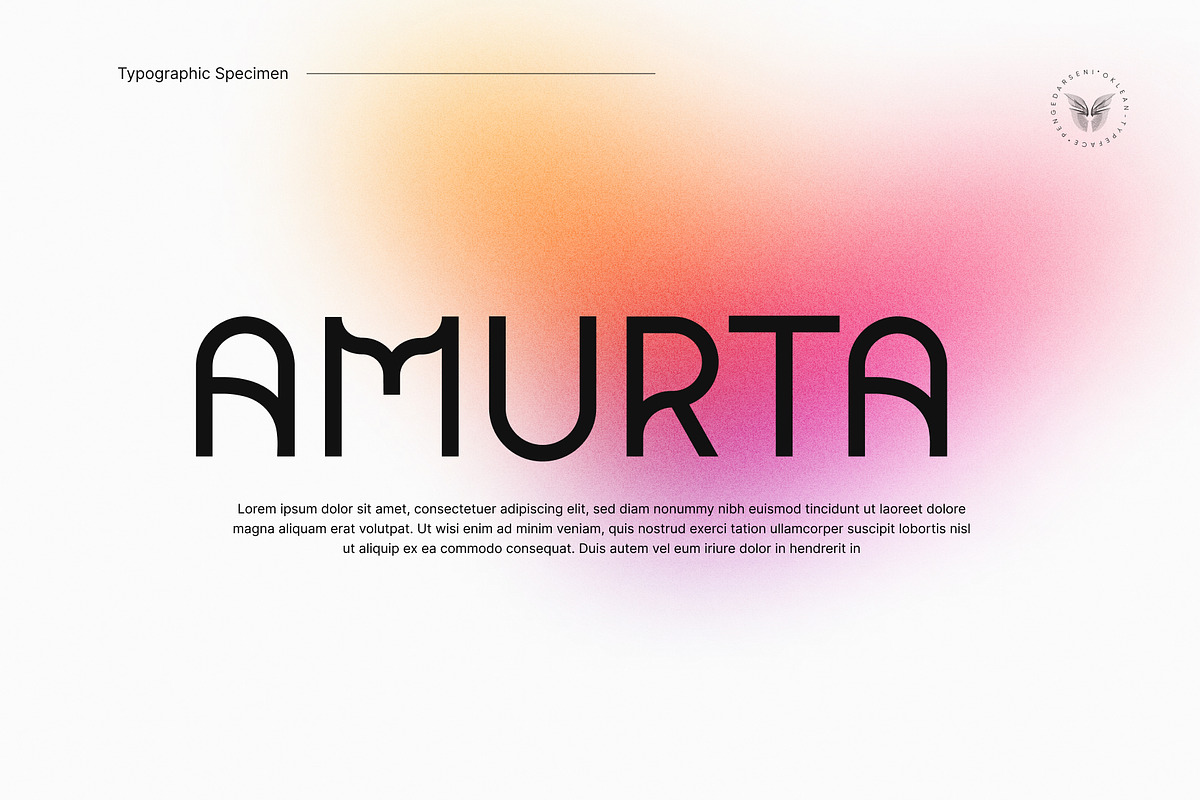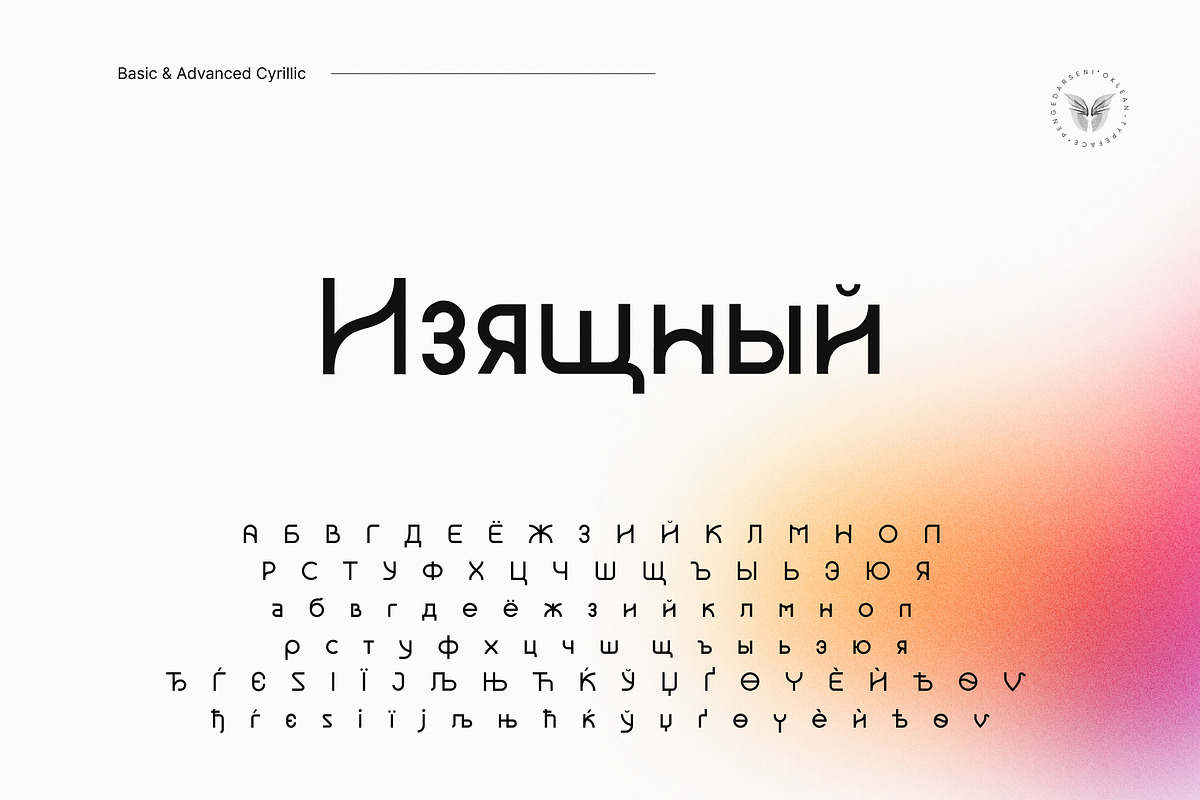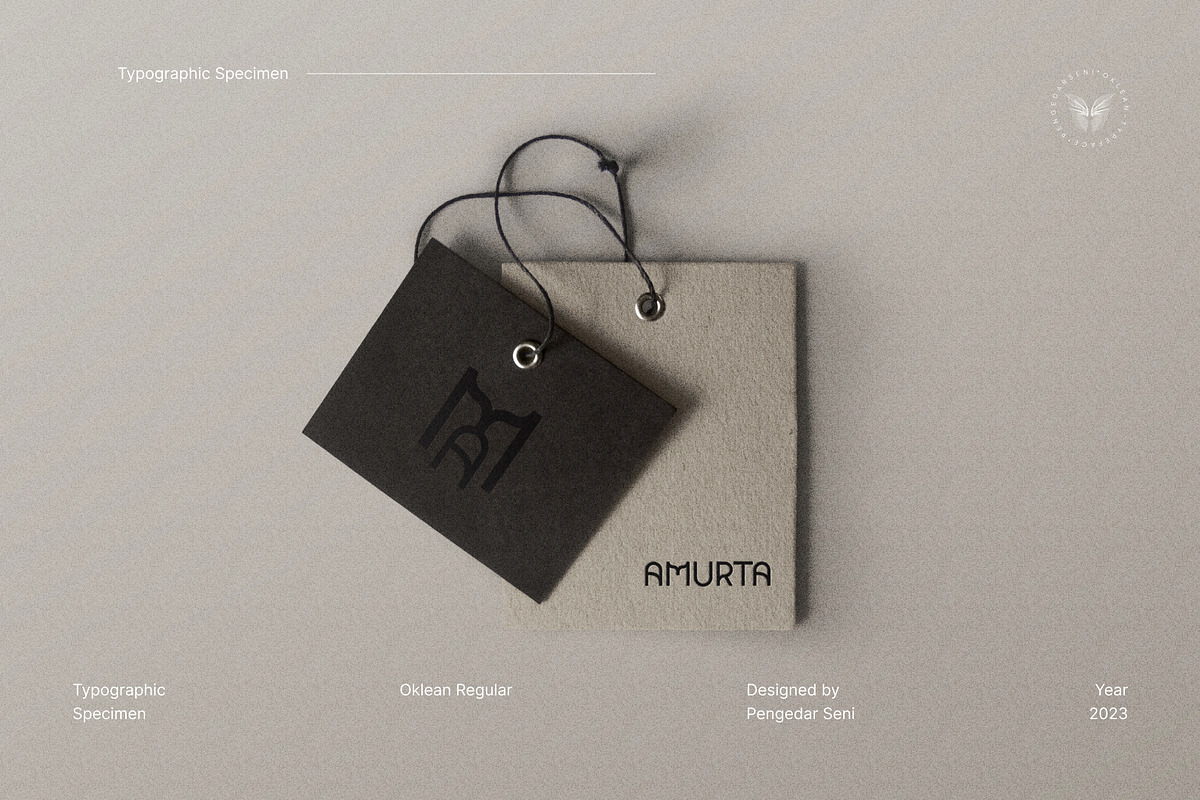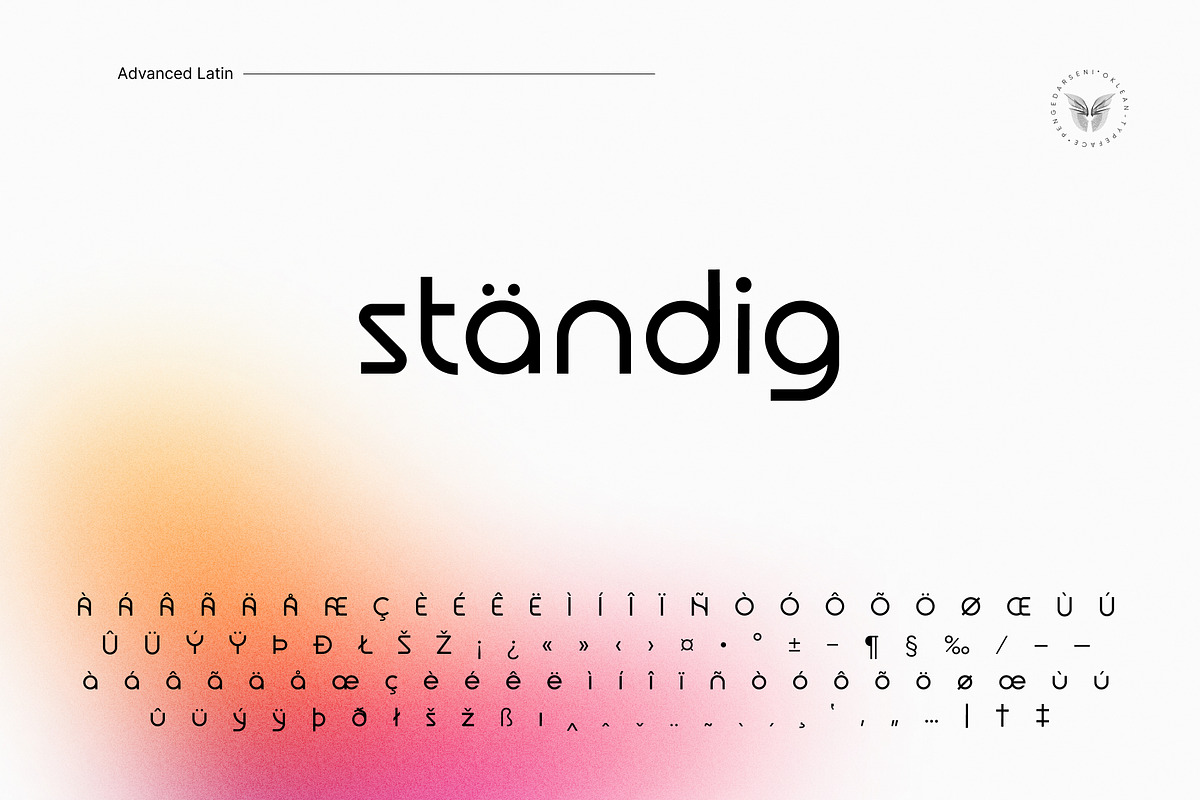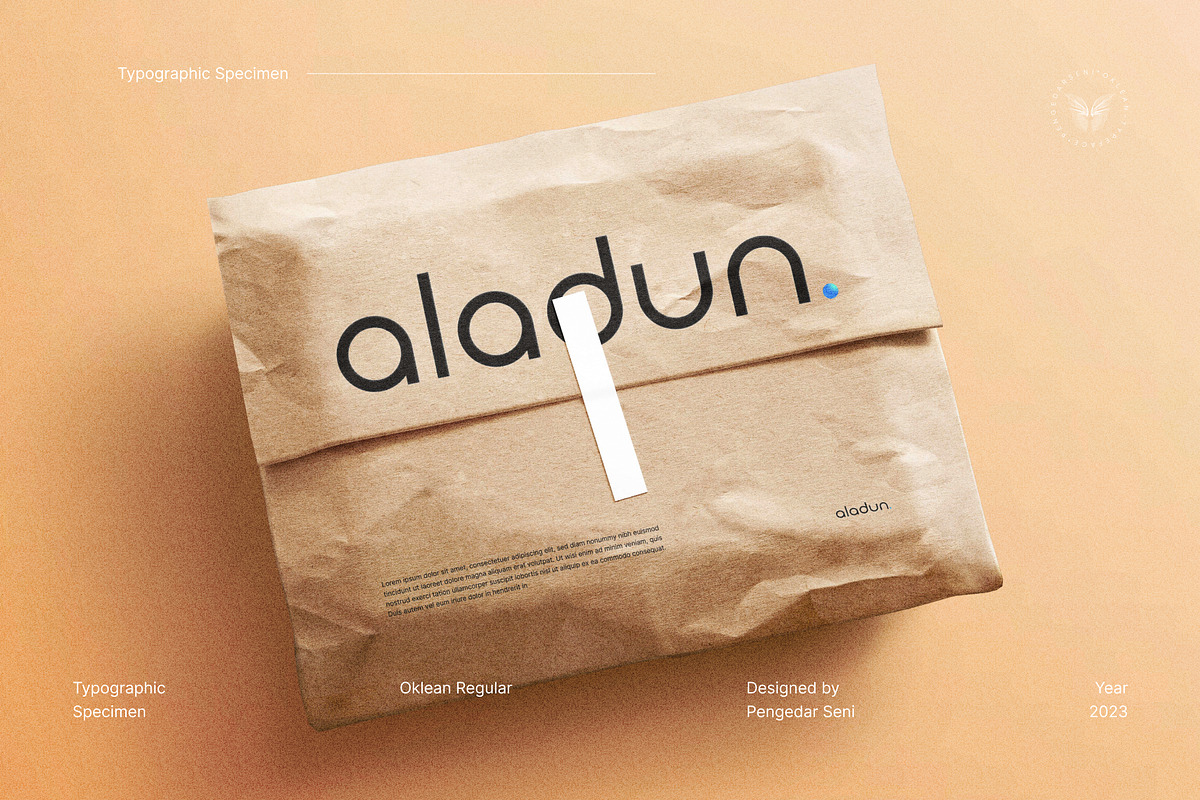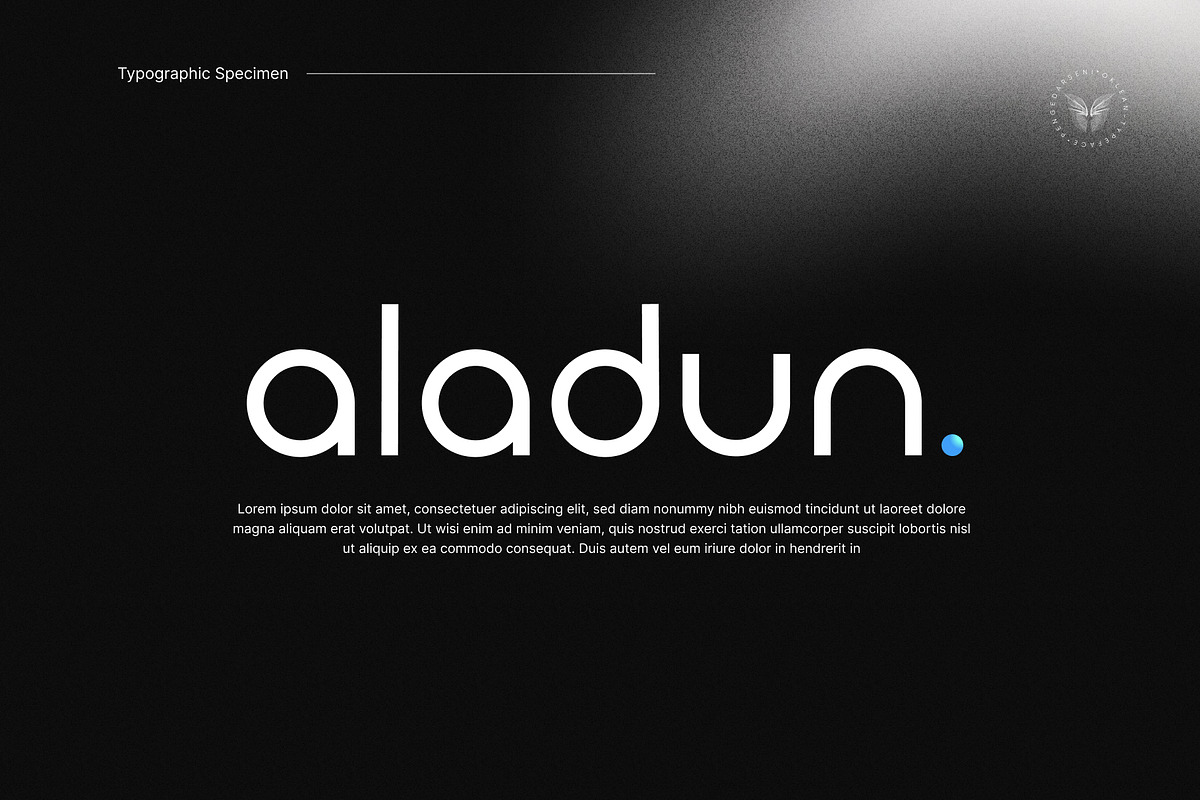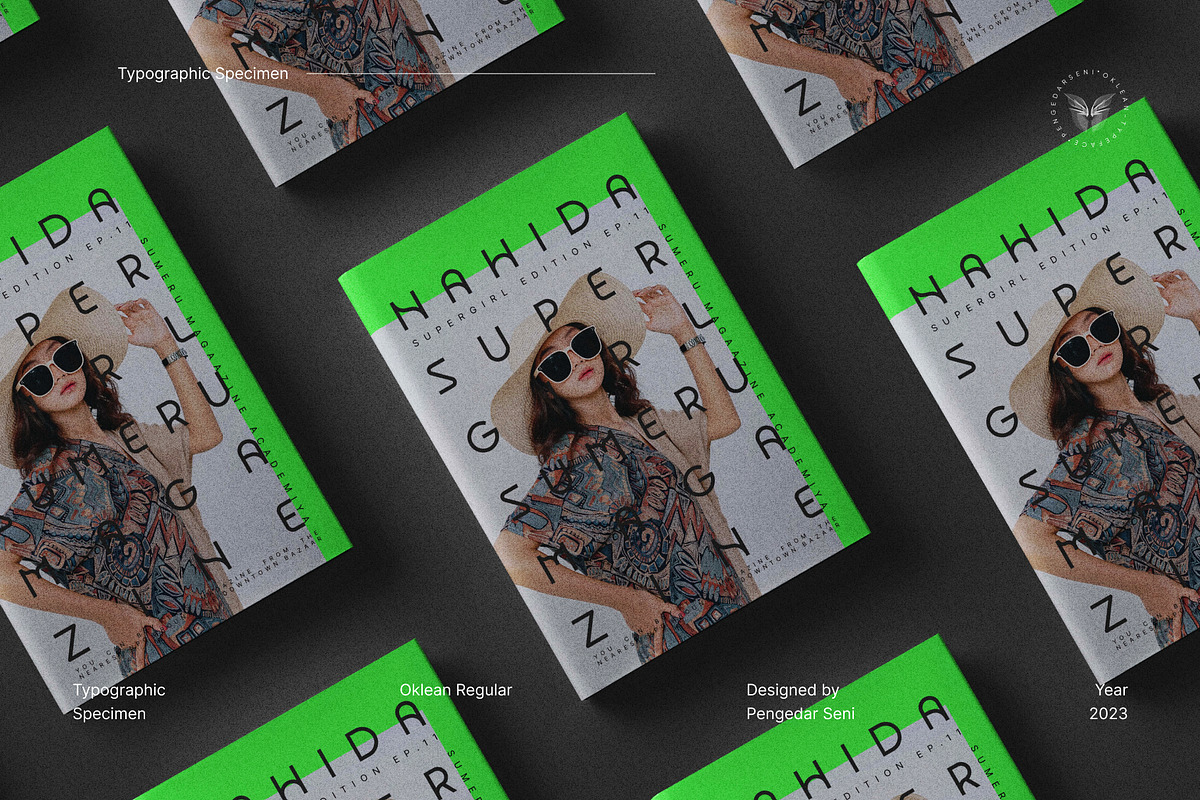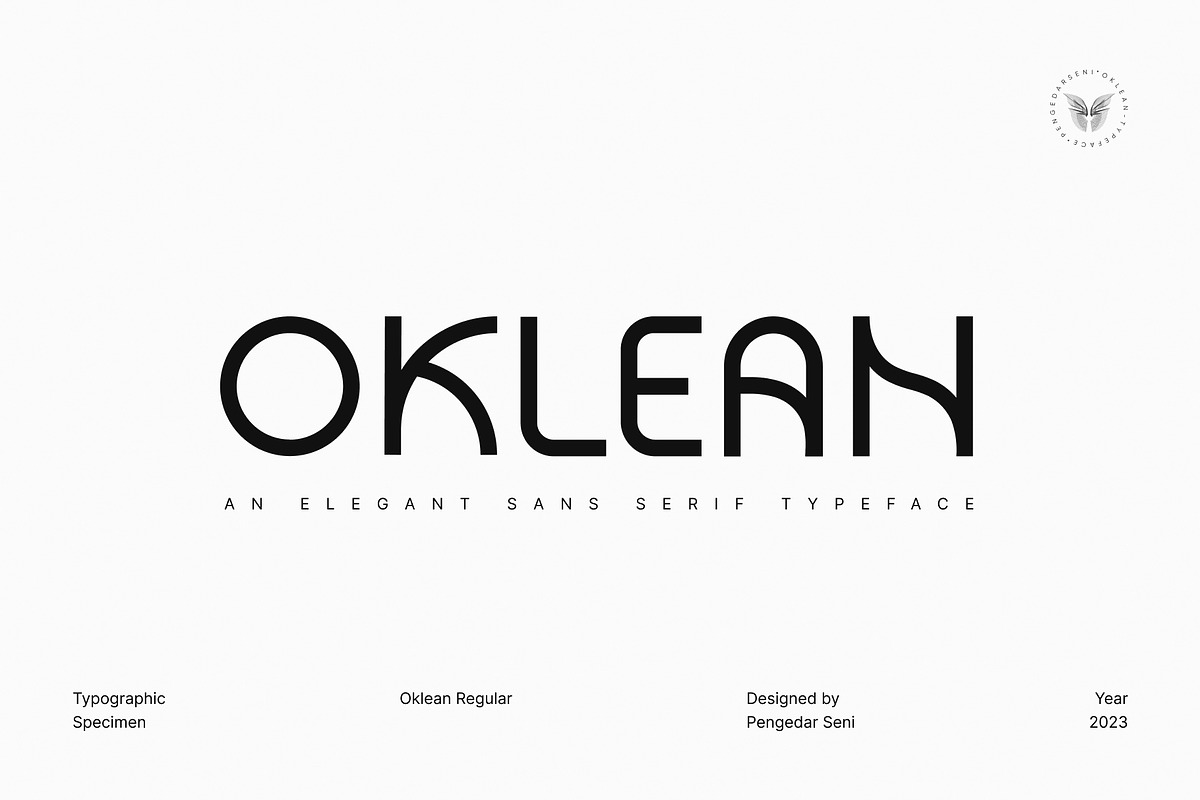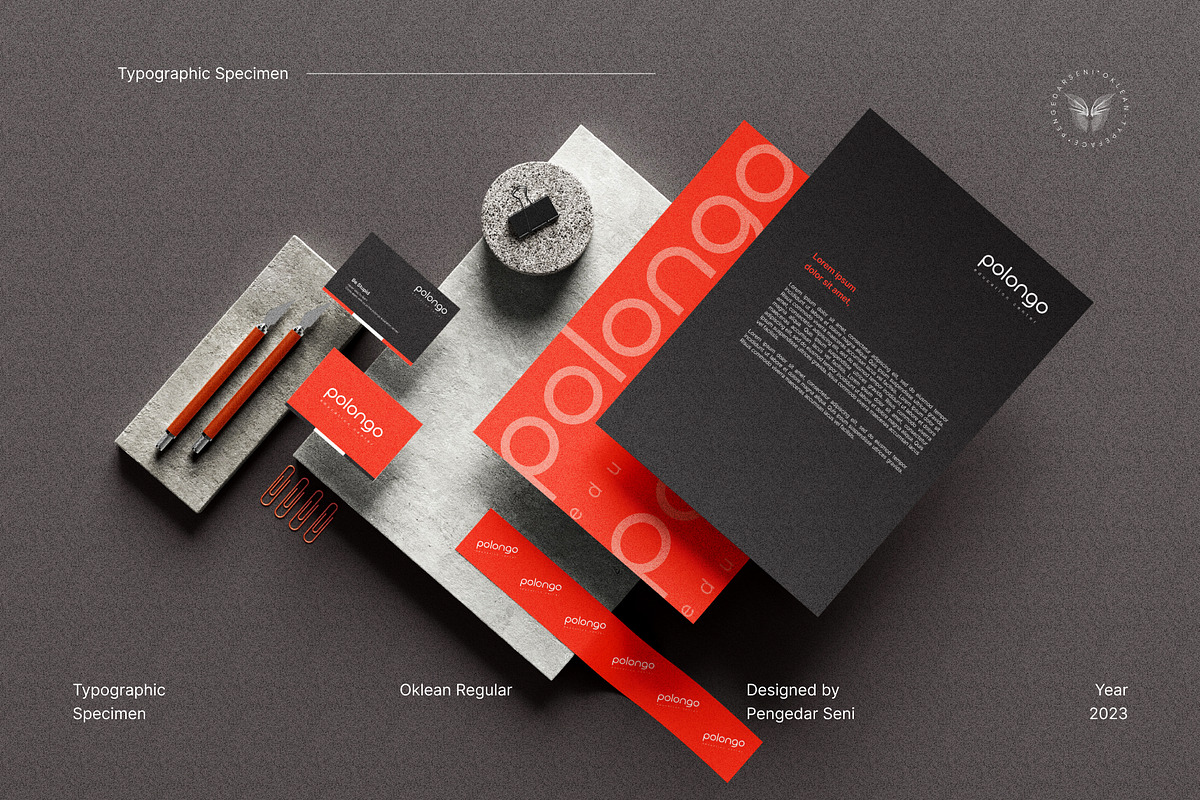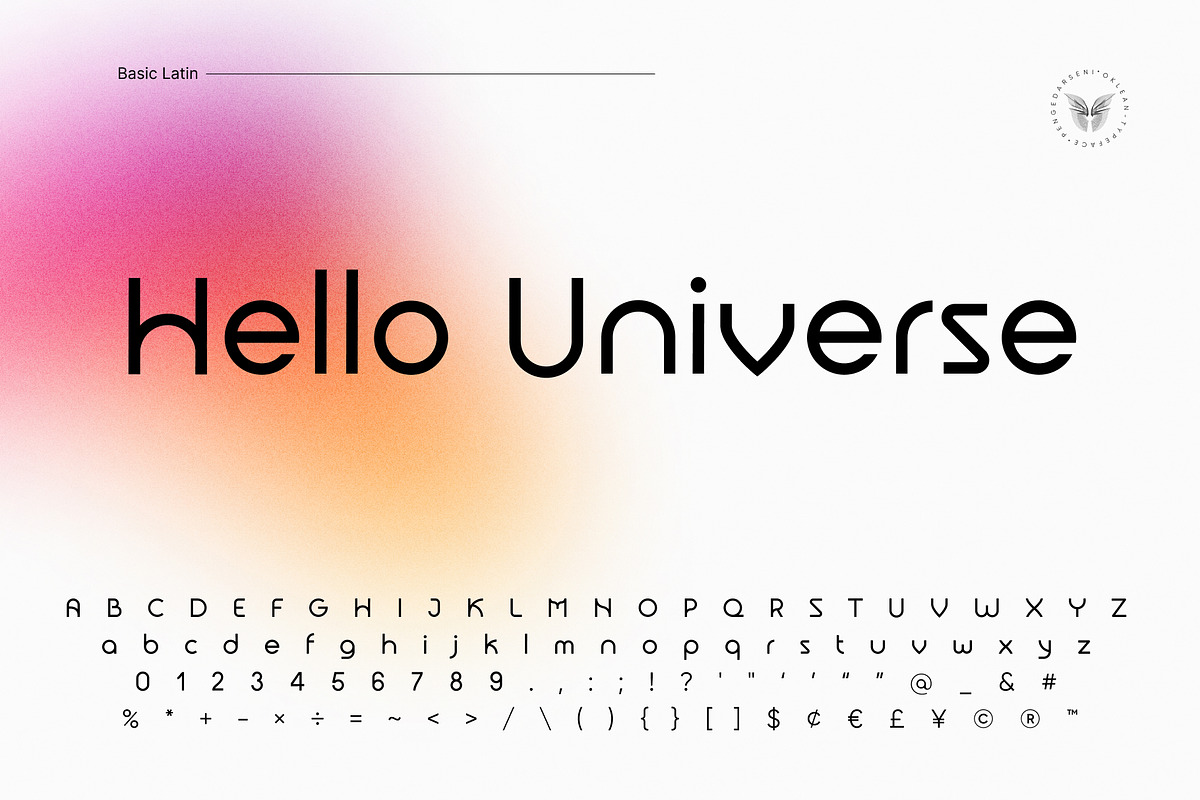
Oklean - Elegant Sans Serif
Oklean is a special font for your logo & branding. Every character is designed for a good logo, so they are not suitable for long texts.
Oklean has a concept that is : Bright / Clean / Clear / Cool / Nature / Minimal / Smart / Urban / Balanced.
Character Set: 327 Glyphs | A-Z / a-z / 0-9 /
Basic Latin Advanced Latin Basic Cyrillic Advanced Cyrillic. Language Support The subset of Oklean Regular in this kit supports the following languages:
Albanian, Basque, Breton, Chamorro, Danish, Dutch, English, Faroese, Finnish, French, Frisian, Galician, German, Icelandic, Italian, Malagasy, Norwegian, Portuguese, Spanish, Alsatian, Aragonese, Arapaho, Arrernte, Asturian, Aymara, Bislama, Cebuano, Corsican, Fijian, French_creole, Genoese, Gilbertese, Greenlandic, Haitian_creole, Hiligaynon, Hmong, Hopi, Ibanag, Iloko_ilokano, Indonesian, Interglossa_glosa, Interlingua, Irish_gaelic, Jerriais, Lojban, Lombard, Luxembourgeois, Manx, Mohawk, Norfolk_pitcairnese, Occitan, Oromo, Pangasinan, Papiamento, Piedmontese, Potawatomi, Rhaeto-romance, Romansh, Rotokas, Sami_lule, Samoan, Sardinian, Scots_gaelic, Seychelles_creole, Shona, Sicilian, Somali, Southern_ndebele, Swahili, Swati_swazi, Tagalog_filipino_pilipino, Tetum, Tok_pisin, Uyghur_latinized, Volapuk, Walloon, Warlpiri, Xhosa, Yapese, Zulu, Latinbasic, Ubasic,
Font Pairing: Inter (Text)
Oklean has been upgraded with an improved character set, refined letterforms, and a brand-new Thin Weight, making it even more versatile for your creative projects.